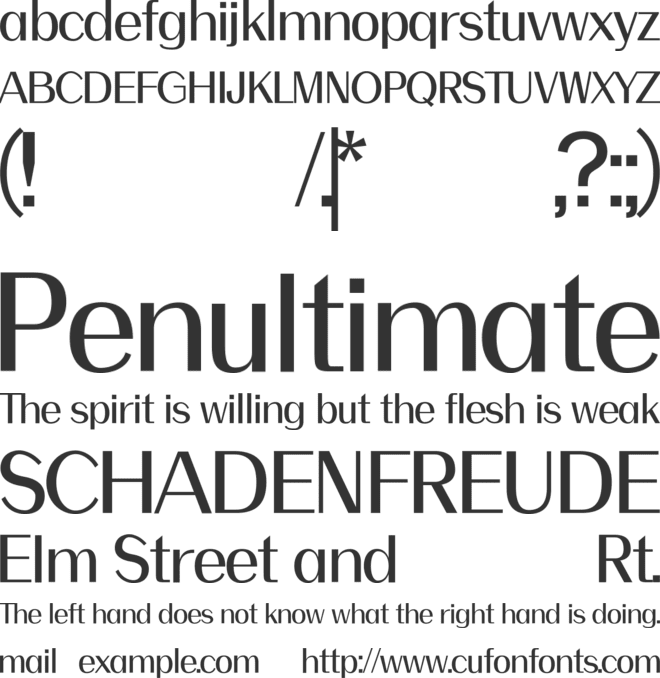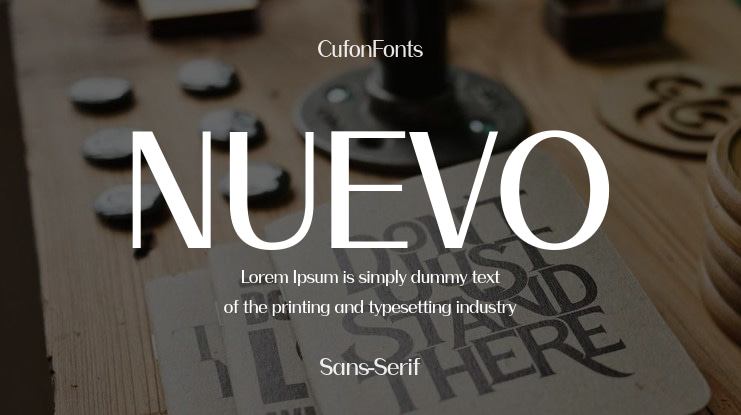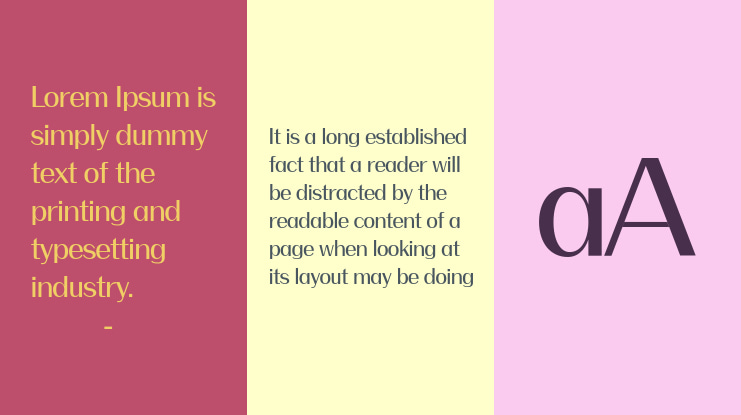
π¨ Font Name: Nuevo by Minimalist Art Studio
π¨ Font Description: NUEVO is an elegant sans serif with soft geometry and multilingual finesse, ideal for branding, fashion, and editorial design.
β Complete Latin set + multilingual diacritics
β Alternates, stylistic sets & ligatures
β Numbers, small caps, and extended punctuation
β Bonus italics and family styles